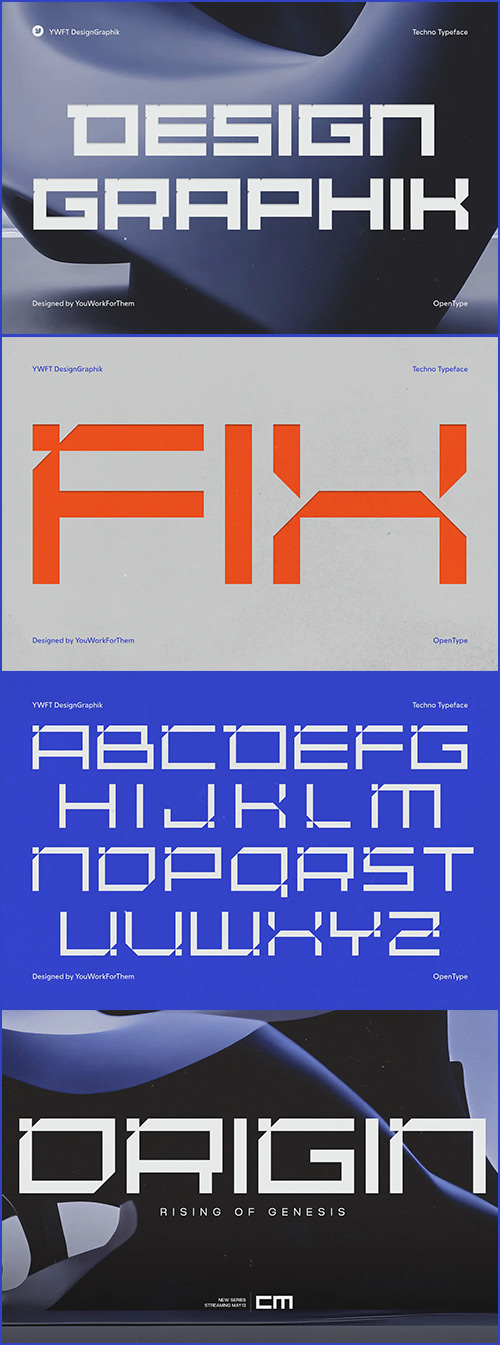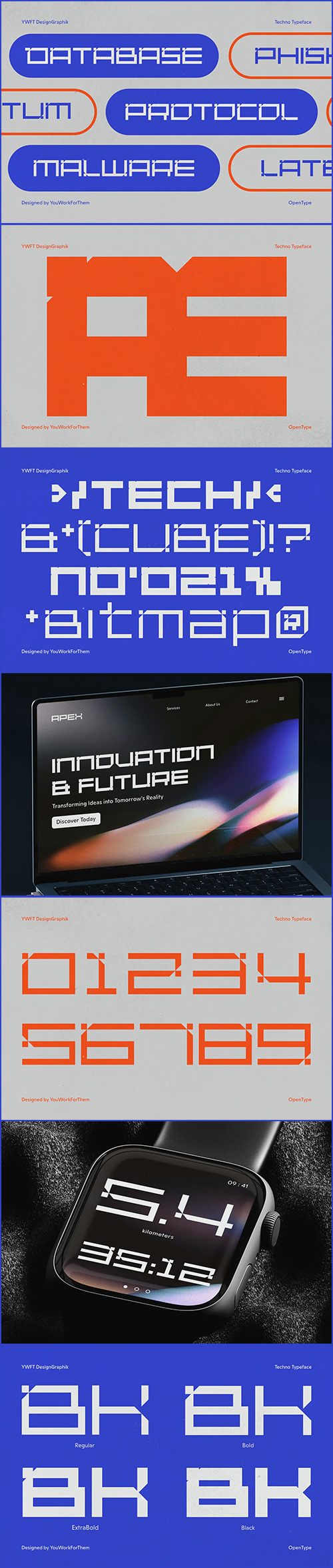
- YWFT DesignGraphik was a custom typeface created for the 5th version of the online art project DesignGraphik. YWFT DesignGraphik carries a strong resemblance to Michael Paul Young’s work of the late 90’s and early 2000’s, which set the style and trend visually for many websites to follow. This typeface has its roots in an electronic/tech-like style, but when using the Black weight it can achieve many uses as a headline font. YWFT DesignGraphik was designed in 2000, converted to opentype format in 2010. Previously known as ‘Unfinished.’